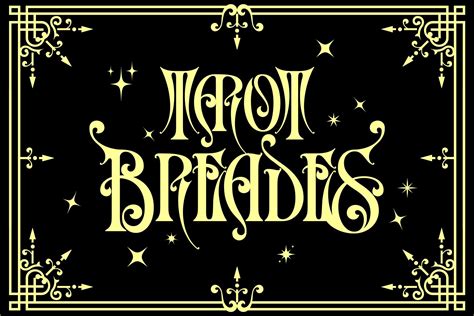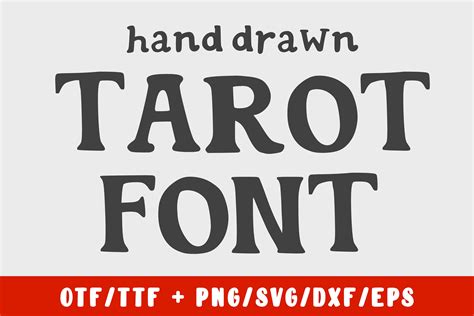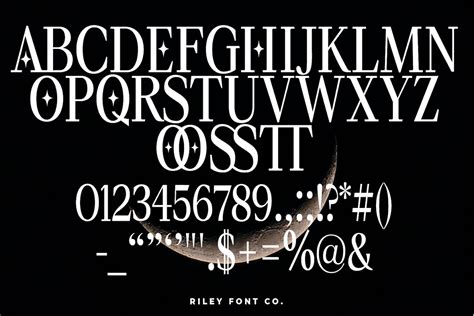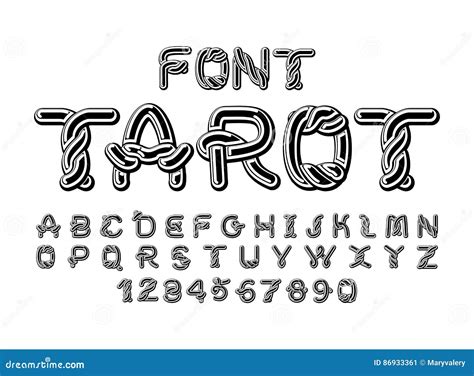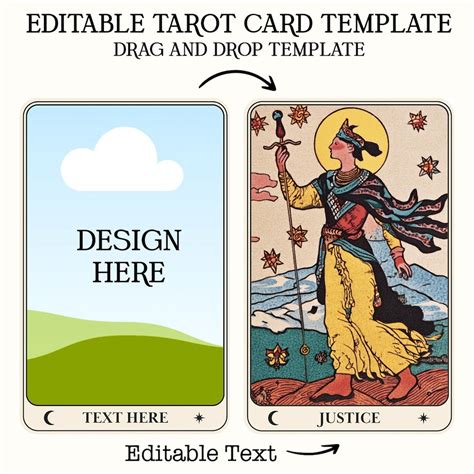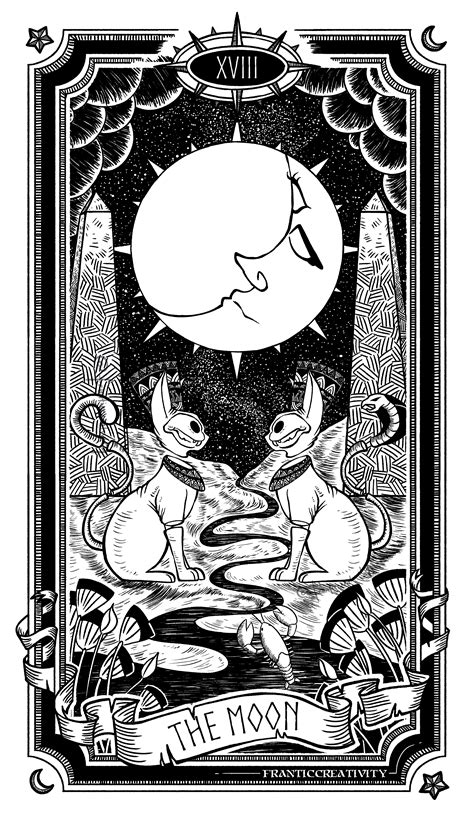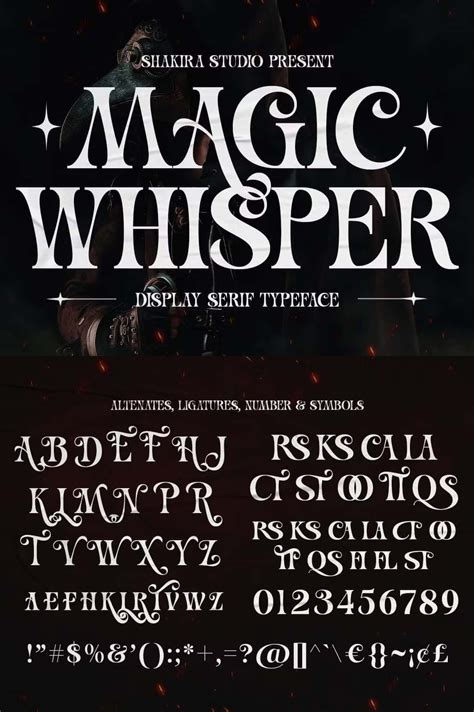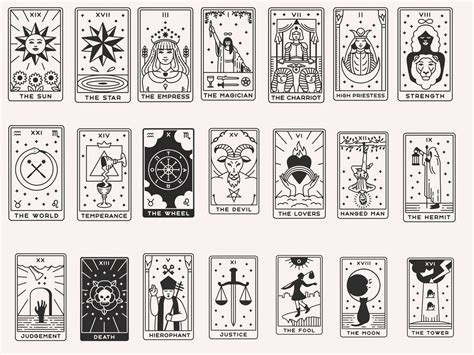
Tarot cards have been a source of fascination and intrigue for centuries, offering insights into the human psyche and the mysteries of the universe. One of the most captivating aspects of tarot is the artistry and symbolism embedded in the cards, which often includes intricate designs and elegant typography. The choice of a Tarot Card Font can significantly enhance the aesthetic appeal and readability of tarot decks, making them more engaging for both novice and experienced readers. This blog post delves into the world of tarot card fonts, exploring their significance, popular choices, and how to select the perfect font for your tarot deck.
Understanding the Significance of Tarot Card Fonts
The font used on tarot cards is more than just a means of conveying information; it is an integral part of the card's overall design and symbolism. A well-chosen Tarot Card Font can:
- Enhance the mystical and esoteric feel of the cards.
- Improve readability, making it easier for users to understand the meanings and interpretations.
- Complement the artwork and design elements, creating a cohesive and visually appealing deck.
- Reflect the theme or style of the tarot deck, whether it be traditional, modern, or themed.
When selecting a Tarot Card Font, it is essential to consider the following factors:
- Legibility: The font should be easy to read, even at smaller sizes.
- Style: The font should match the overall aesthetic of the deck, whether it is classic, whimsical, or contemporary.
- Symbolism: Some fonts carry symbolic meanings that can enhance the tarot experience.
- Versatility: The font should work well with various card designs and layouts.
Popular Tarot Card Fonts
There are numerous fonts available that are specifically designed for tarot cards. Here are some of the most popular choices:
Gothic and Medieval Fonts
Gothic and medieval fonts are often used in traditional tarot decks due to their historical and mystical connotations. These fonts can add a sense of antiquity and depth to the cards. Some popular choices include:
- Old English Text MT
- Blackletter
- Goudy Old Style
Elegant and Script Fonts
Elegant and script fonts are ideal for decks that aim to convey a sense of grace and sophistication. These fonts can make the cards feel more personal and intimate. Some popular choices include:
- Edwardian Script
- Great Vibes
- Allura
Modern and Minimalist Fonts
For those who prefer a more contemporary look, modern and minimalist fonts are an excellent choice. These fonts are clean, simple, and easy to read, making them suitable for a wide range of tarot decks. Some popular choices include:
- Helvetica
- Arial
- Lato
Themed Fonts
Themed fonts are designed to match specific themes or styles, such as Celtic, Egyptian, or fantasy. These fonts can add a unique and distinctive touch to your tarot deck. Some popular choices include:
- Celtic Hand
- Hieroglyphs
- Elvish
Selecting the Perfect Tarot Card Font
Choosing the right Tarot Card Font involves considering several factors to ensure it aligns with the overall vision of your deck. Here are some steps to guide you through the process:
Define Your Deck's Style
Before selecting a font, determine the style and theme of your tarot deck. Are you aiming for a traditional, modern, or themed deck? Understanding your deck's style will help you narrow down your font choices.
Consider Legibility
Legibility is crucial, especially for tarot cards that will be used for readings. Ensure the font is easy to read at various sizes and from different angles. Avoid overly ornate or complex fonts that may be difficult to decipher.
Match the Artwork
The font should complement the artwork and design elements of the cards. For example, if your deck features intricate illustrations, a more ornate font may be appropriate. Conversely, a minimalist design may pair well with a clean, modern font.
Test Different Fonts
Experiment with different fonts to see how they look on your cards. Print out samples or use digital mockups to visualize the final product. This will help you make an informed decision and ensure the font meets your expectations.
Seek Feedback
Share your font choices with others and seek their feedback. Sometimes, an outside perspective can provide valuable insights and help you make the best decision.
💡 Note: When testing fonts, consider how they will look in both digital and printed formats, as the appearance can vary.
Creating Custom Tarot Card Fonts
For those who want a truly unique Tarot Card Font, creating a custom font can be a rewarding experience. Here are some steps to guide you through the process:
Conceptualize Your Font
Begin by conceptualizing the style and design of your font. Consider the overall aesthetic of your tarot deck and how the font will complement it. Sketch out some initial ideas and refine them until you have a clear vision.
Choose a Font Design Software
Select a font design software that suits your needs and skill level. Some popular choices include:
Incorporating a well-chosen Tarot Card Font into your deck can elevate its visual appeal and enhance the reading experience. Whether you opt for a classic, elegant, modern, or themed font, the key is to select one that complements your deck’s style and improves legibility. By following the steps outlined in this post, you can find the perfect font for your tarot cards and create a deck that is both visually stunning and meaningful.